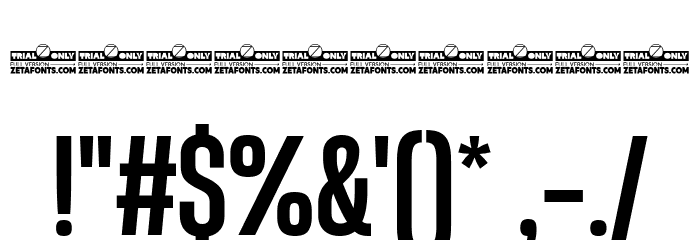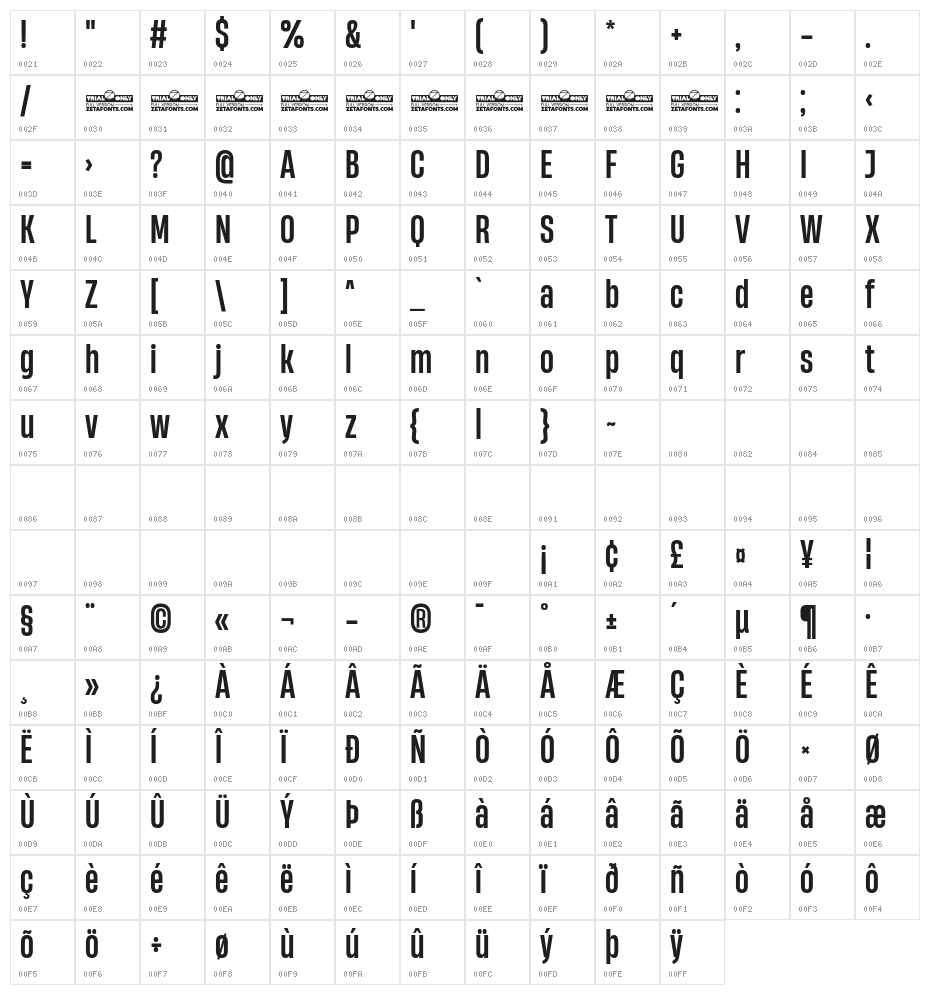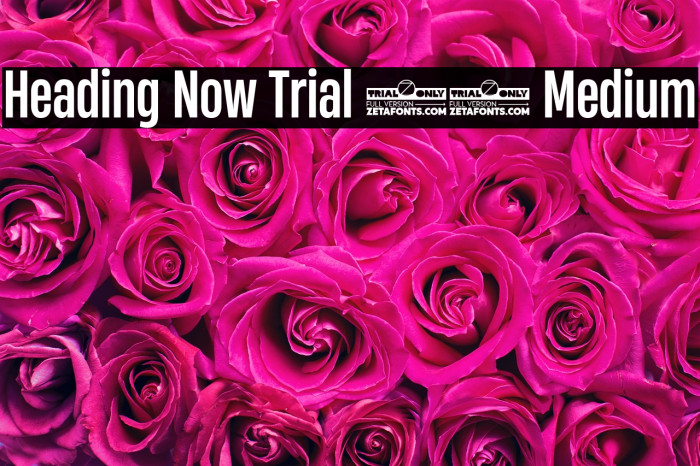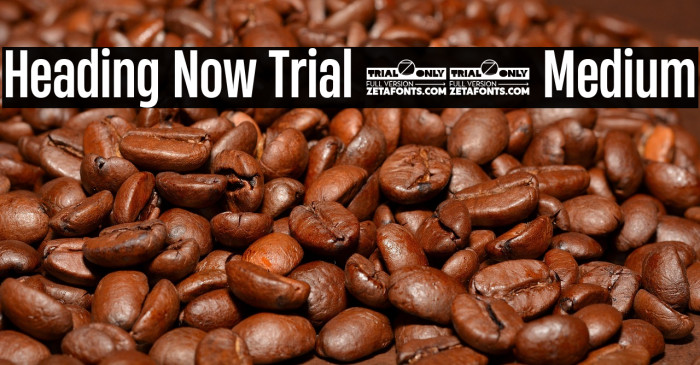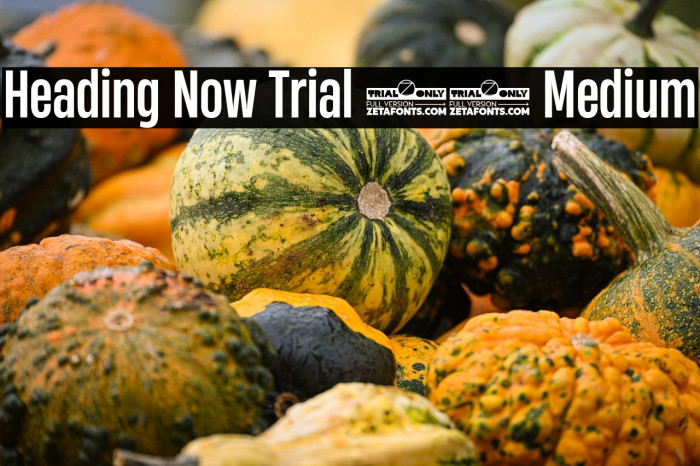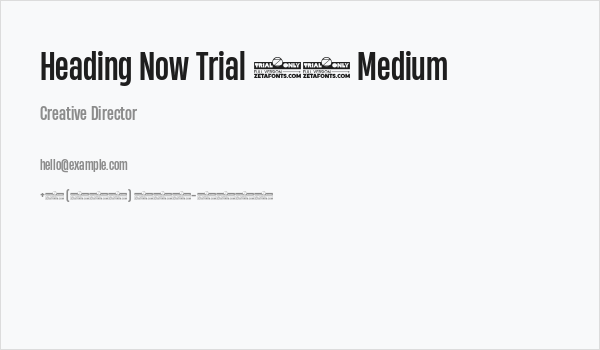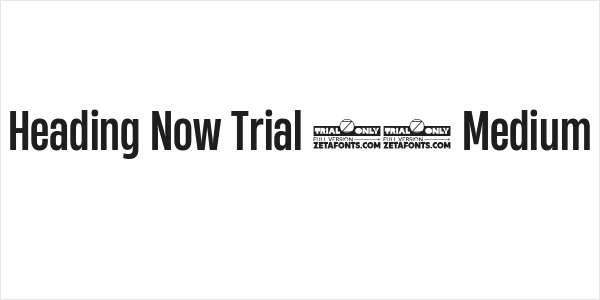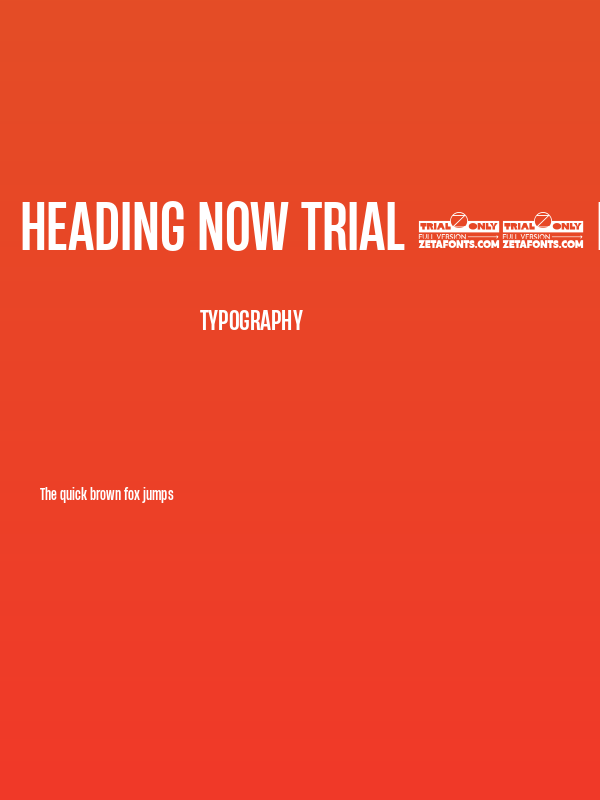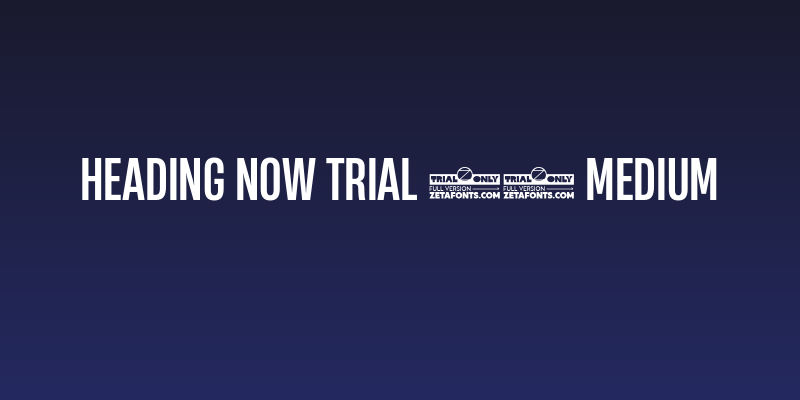
Heading Now Trial 45 Medium Font
Heading Now Trial 45 Medium Description
This font features a bold and modern sans-serif style with clean, straight lines and uniform stroke widths. The uppercase and lowercase letters maintain a consistent height and width, creating a balanced and cohesive look. The numerals and special characters are designed to match the overall style, ensuring readability and visual appeal. The font's structure is robust, making it suitable for various design applications where clarity and impact are essential.
| Proposed Projects | Ideal for headlines, posters, branding, and advertising where a strong visual impact is needed. |